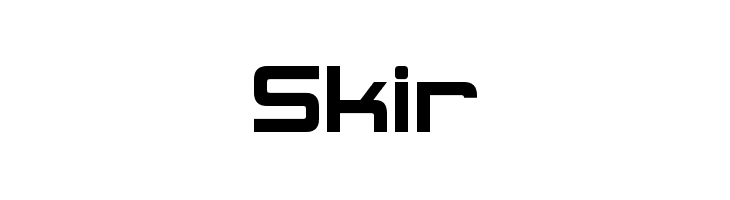
( Fonts by Graham Meade - GemFonts )
A bold, 3D serif font with sharp angles and dramatic flair.
A decorative font with whimsical Easter-themed illustrations.
( Fonts by 7NTypes )
A bold, italicized font with a dynamic and playful style.
A bold, three-dimensional font with a dotted texture and angular design.
( Fonts by Glyphobet Font Foundry - Matt Chisholm - http://glyphobet.net/typography/ )
A playful and artistic font with checkerboard patterns and whimsical strokes.
( Fonts by or from www.graffitifonts.net )
A playful, hand-drawn font with irregular, whimsical characters.
( Fonts by Anke Arnold - www.anke-art.de )
A bold, intricate blackletter font with dramatic strokes and historical flair.
( Fonts by Dave Kellam - Brian Stuparyk - www.eightface.com )
A bold, distressed font with an irregular, grunge aesthetic.
( Fonts by 7NTypes )
A playful, bold, and hand-drawn font with a whimsical style.
( Fonts by pheist.net - Stefanie Koerner )
A bold, pixelated font with a geometric, retro digital style.
A decorative font with Easter-themed illustrations for each character.
( Fonts by www.pia-frauss.de )
An ornate blackletter font with intricate flourishes and bold strokes.
A classic serif font with elegant curves and moderate contrast, perfect for sophisticated designs.
( Fonts by uatype.faithweb.com - UnAuthorized Type )
A bold, slightly hollow font with angular, geometric characters.
A bold, expressive serif font with strong strokes and playful curves.
( Fonts by www.blambot.com )
A bold, angular, and slanted font with a dynamic and edgy style.
A bold, expanded font with geometric and angular elements, perfect for impactful designs.
( Fonts by Des Gomez )
A playful, handwritten font with tall, narrow letters and a casual style.
A modern, geometric sans-serif font with clean lines and excellent legibility.
( Fonts by SDFonts - Ritzy )
A bold, textured font with a playful, handcrafted style.
A bold, italicized font with a futuristic and dynamic style.
A bold, geometric font with a futuristic and robotic aesthetic.